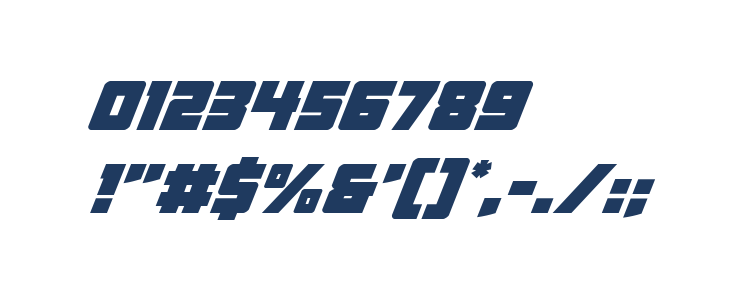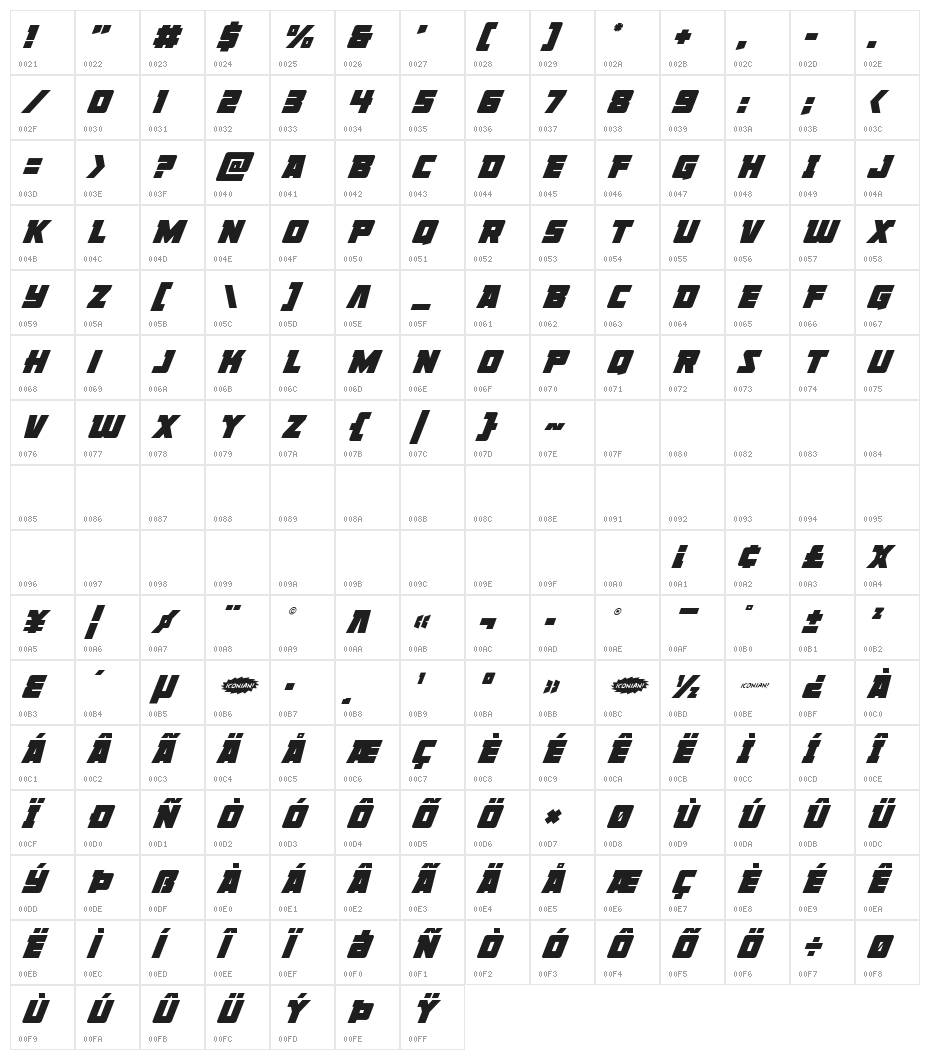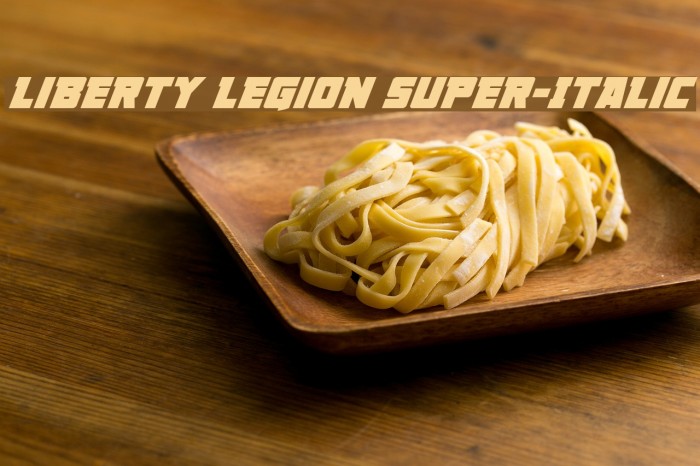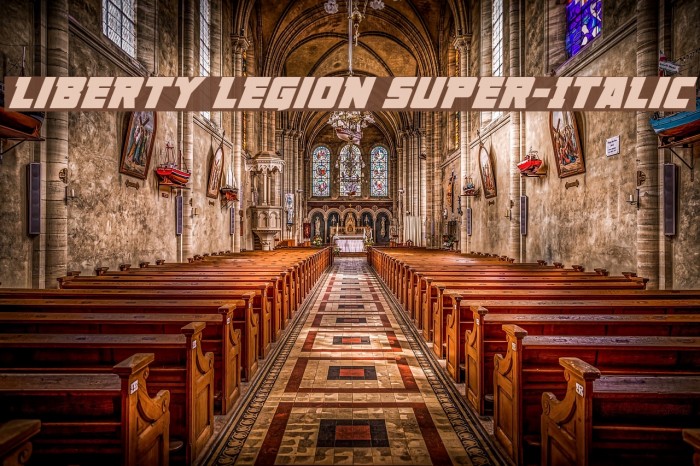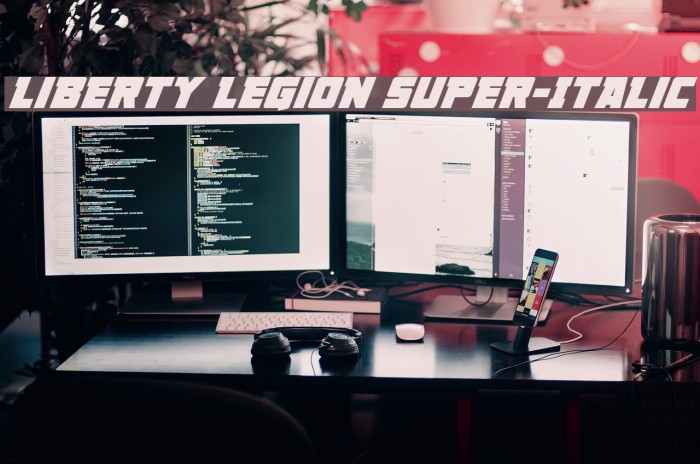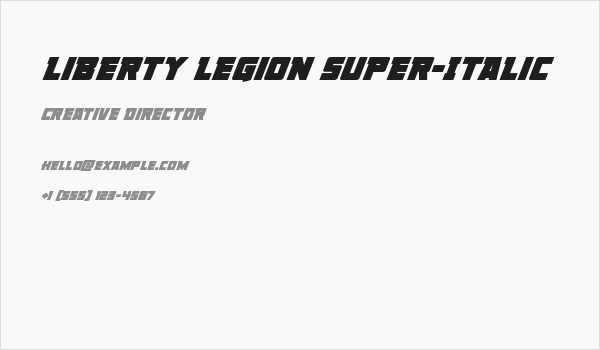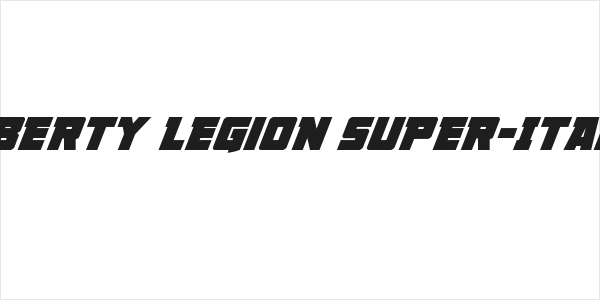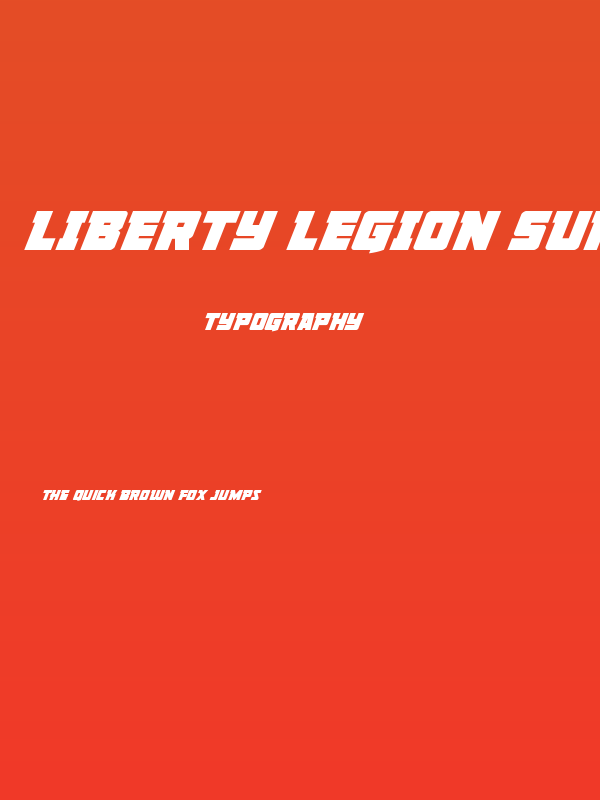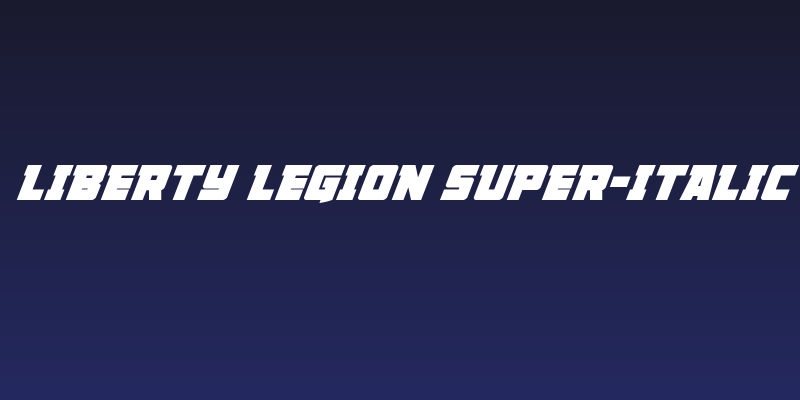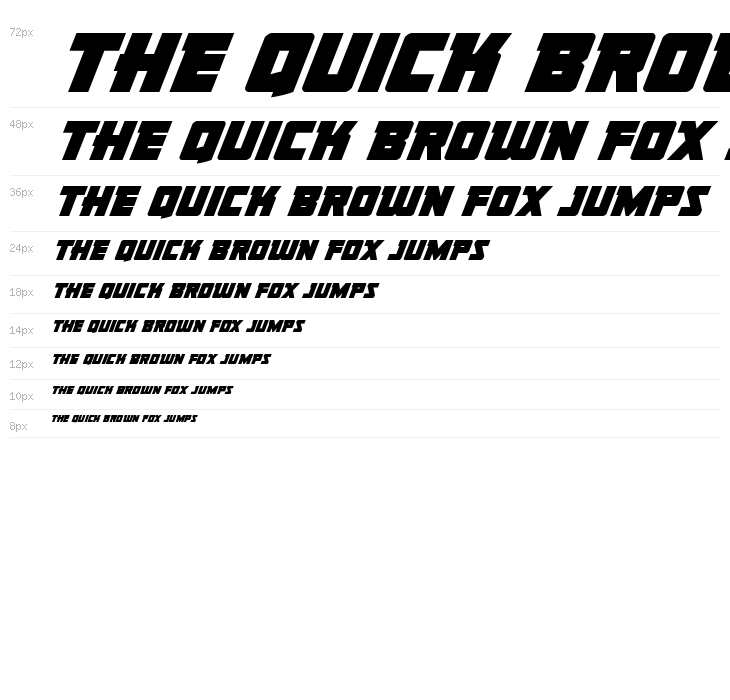
Liberty Legion Super-Italic Font
Liberty Legion Super-Italic Description
This font features a bold and dynamic style with a strong italic slant, giving it a sense of motion and energy. The characters are robust and angular, with sharp edges and a solid presence. The uppercase and lowercase letters maintain a consistent weight, ensuring readability while conveying a sense of urgency and modernity. The numerals and special characters are equally bold, complementing the overall aesthetic. This font is ideal for projects that require a striking and impactful visual statement.
Proposed ProjectsPerfect for sports branding, action movie posters, video game titles, and dynamic advertising campaigns.